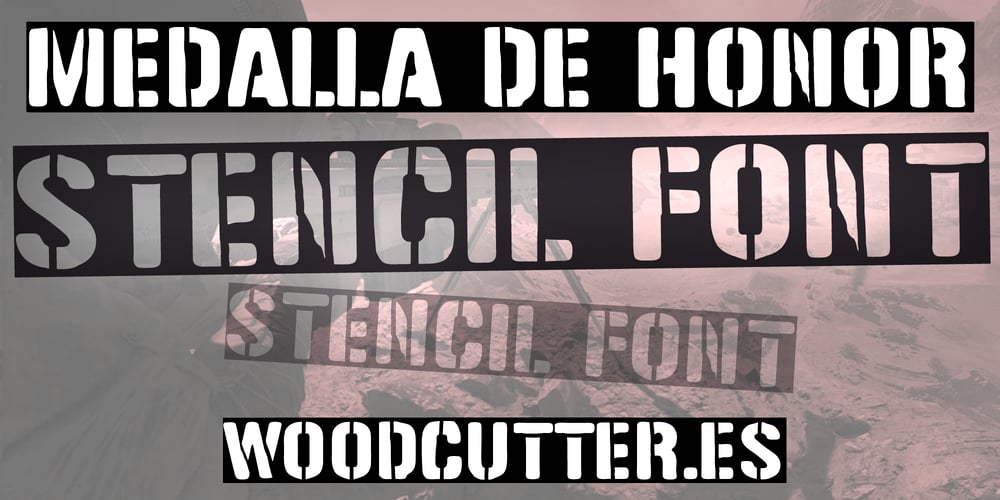
Medalla de Honor Font Family was designed by Jordi Manero and published by Woodcutter. Medalla de Honor contains 1 styles and family package options. “Medalla de Honor” is an uppercase stencil-style font characterized by its strong, solid letters designed to look as if they were painted using a stencil. The letters are enclosed within a box, adding a robust and organized touch that evokes a military and high-distinction aesthetic. Its design is ideal for conveying authority, respect, and formality, perfect for impactful titles, badges, and designs that require a bold and disciplined appearance. The “Medalla de Honor” font combines the simplicity of stencil design with the strength of boxed letters for a powerful visual effect.